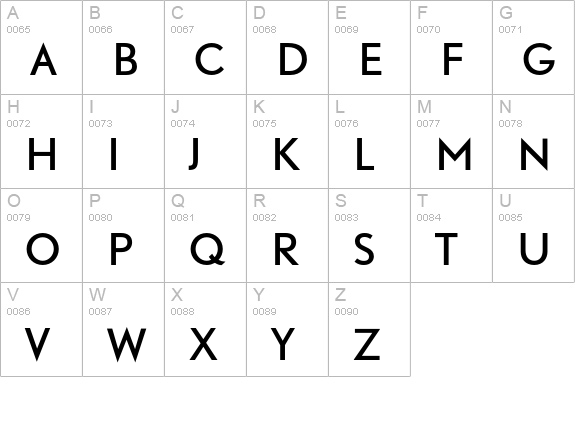
DTLNobelT Font Details
DTLNobelT is a versatile and elegant font that exudes sophistication and modernity. With its clean lines and balanced proportions, this font is perfect for a wide range of design projects, from branding and marketing materials to website design and print publications. DTLNobelT is a timeless typeface that adds a touch of class to any project it is used in. The best part about DTLNobelT is that it is completely free to download at FontsMarket.com. You can easily access this stylish font and incorporate it into your designs without any hassle. Don't miss out on the opportunity to elevate your projects with the sleek and professional look of DTLNobelT. Download it today and see the difference it can make in your designs.